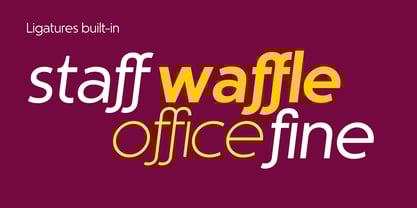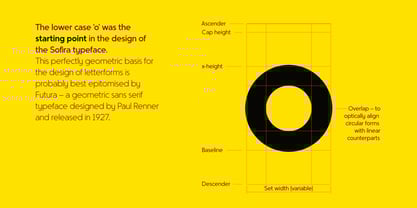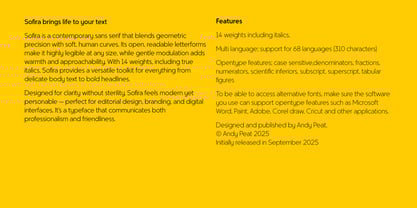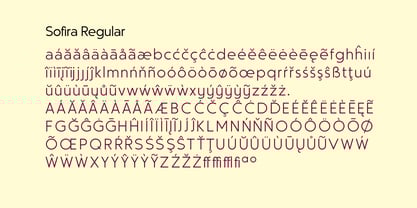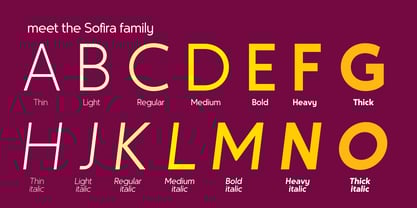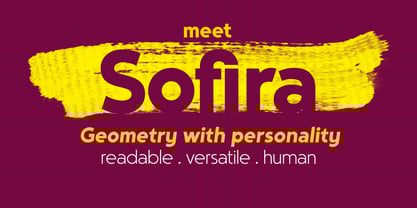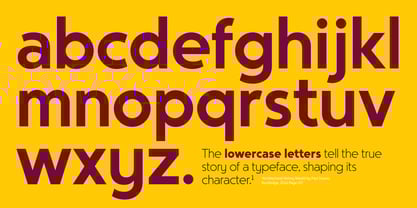
Sofira
by Andy Peat
Sofira brings life to your text
Sofira is a contemporary sans serif that blends geometric precision with soft, human curves. Its open, readable letterforms make it highly legible at any size, while gentle modulation adds warmth and approachability. With 14 weights, including true italics, Sofira provides a versatile toolkit for everything from delicate body text to bold headlines.
Designed for clarity without sterility, Sofira feels modern yet personable — perfect for editorial design, branding, and digital interfaces. It’s a typeface that communicates both professionalism and friendliness.